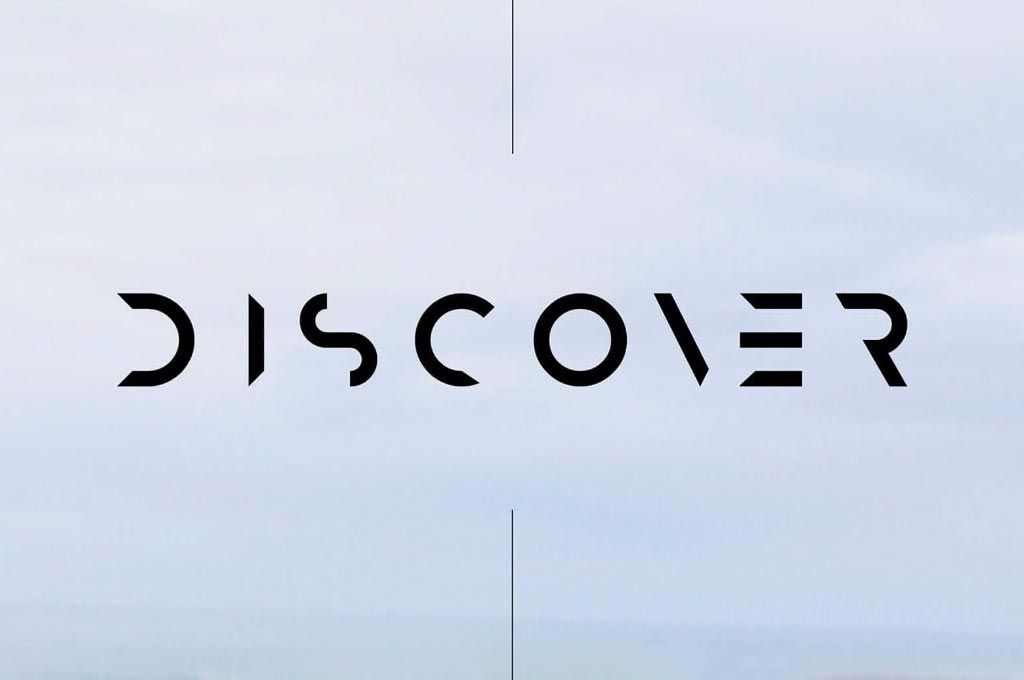
Click to find the best 156 free fonts in the futuristic logo style. This modern typeface is highly readable and is very easy to use. This font is completely free to use with your personal and commercial projects.
Once you're happy with your futuristic logo, download instantly. Exodar by rometheme studio is a futuristic font. New futuristic typefaces, free fonts collection of modern and innovative design.
Using It Will Give Any Creative Design A Feminine And Dynamic Feel.
Nano is a new free futuristic lowercase font from harrison luke. Find & download free graphic resources for futuristic logo. Create your perfect logo fast & easy.